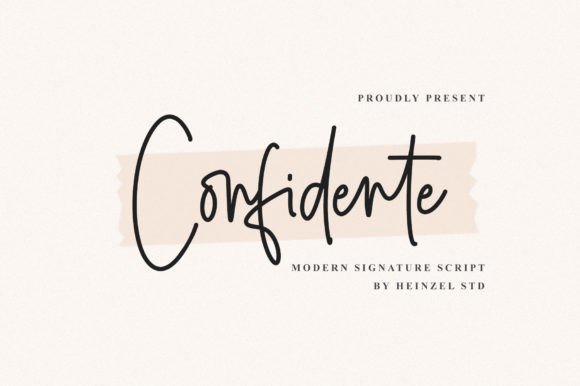
Behold Confidente Signature Font, the enchanting script font that will cast a spell of elegance upon your digital creations! Crafted with meticulous attention to detail by the renowned Heinzel Std, this font exudes a captivating charm that will leave your audience spellbound. Its playful characters dance along the baseline with a grace that is both alluring and captivating. Allow Confidente Signature to be the muse that inspires your most creative endeavors, be it captivating social media posts, breathtaking branding designs, or simply adding a touch of sophistication to your personal messages.
With Confidente Signature, the possibilities are as endless as your imagination. Let your words take on a life of their own as they flow effortlessly through this beautiful script, each letter a work of art in its own right. Your Instagram posts will transform into visually stunning masterpieces, captivating your audience with their allure. Brand designs will radiate with a touch of elegance and distinction, leaving a lasting impression that sets you apart from the ordinary. Even the simplest of personal messages will carry a weight of significance and charm that will leave the recipient feeling touched and appreciated.
The beauty of Confidente Signature lies in its versatility. It effortlessly blends with a wide range of design aesthetics, from the classic and timeless to the modern and edgy. Whether you're crafting elegant wedding invitations, creating eye-catching logos, or designing social media graphics, Confidente Signature will effortlessly elevate your work to new heights of sophistication.
So, embrace the magic of Confidente Signature and embark on a creative journey that will leave you and your audience breathless. Let this font be your secret weapon, transforming your digital creations into captivating works of art that speak volumes without uttering a single word. Immerse yourself in the world of Confidente Signature and let your creativity soar to new heights!